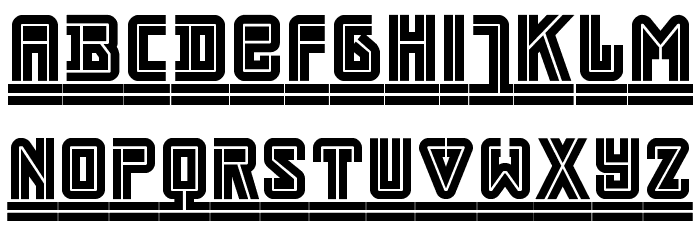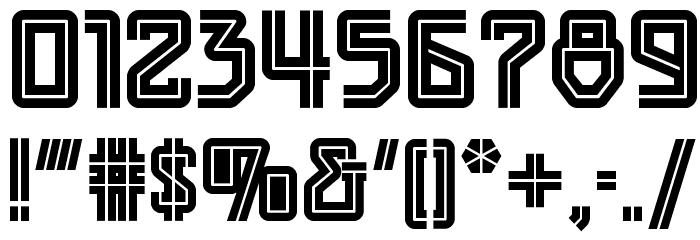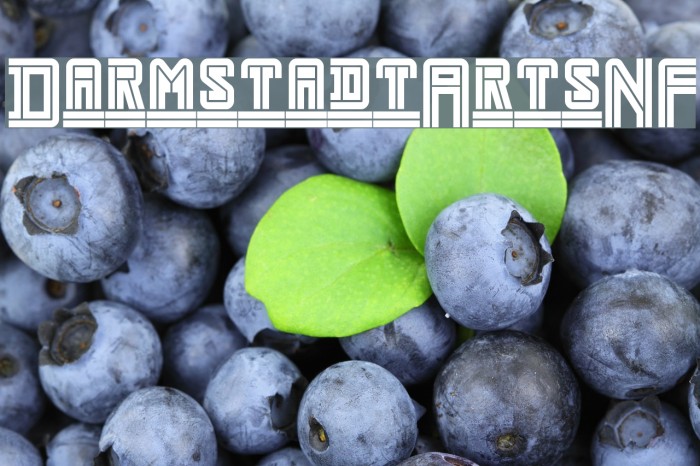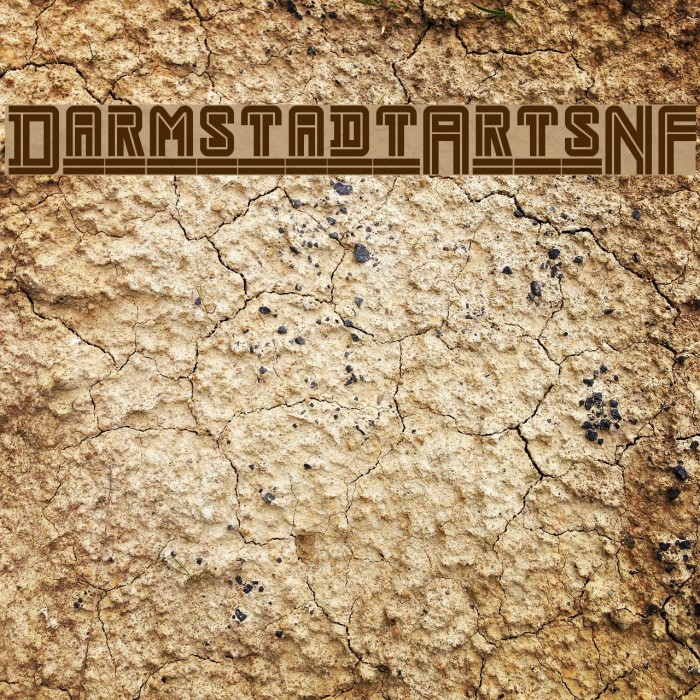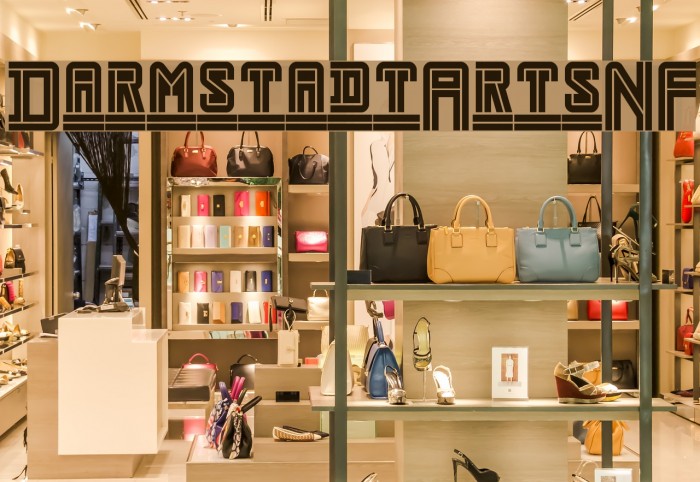
DarmstadtArtsNF Font
This font features a bold, geometric design with a futuristic and industrial feel. The characters are constructed with thick, parallel lines that create a sense of depth and dimension. The uppercase letters are particularly striking, with angular shapes and sharp corners that give them a modern and edgy appearance. The numbers and special characters maintain this aesthetic, ensuring a cohesive look across all elements. The font's unique style makes it stand out, ideal for projects that require a strong visual impact.
- Proposed Projects: Ideal for branding, posters, album covers, and any design needing a modern, impactful look.